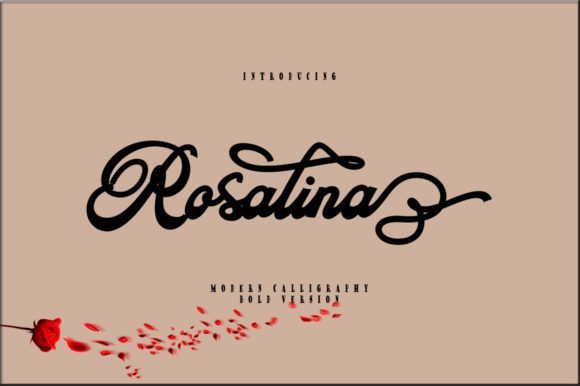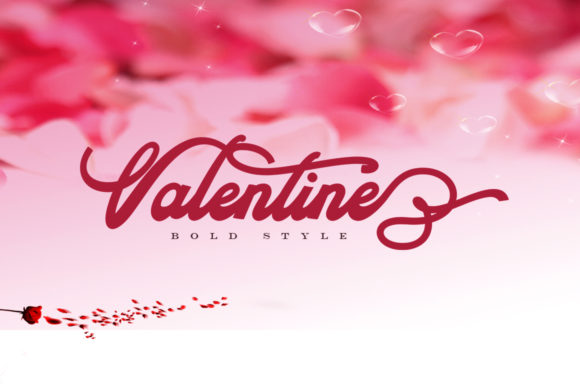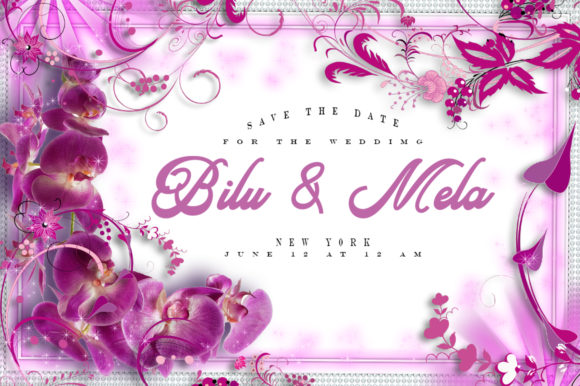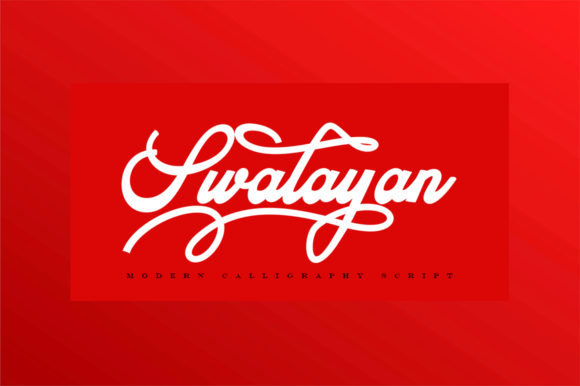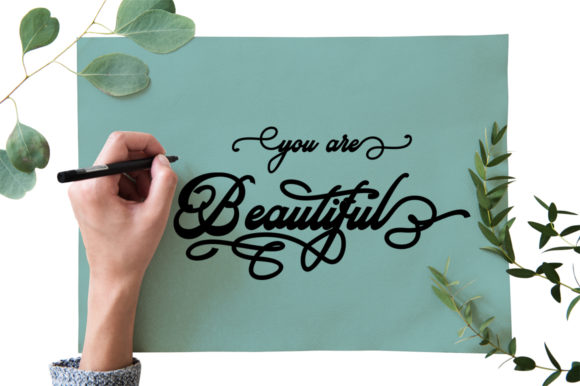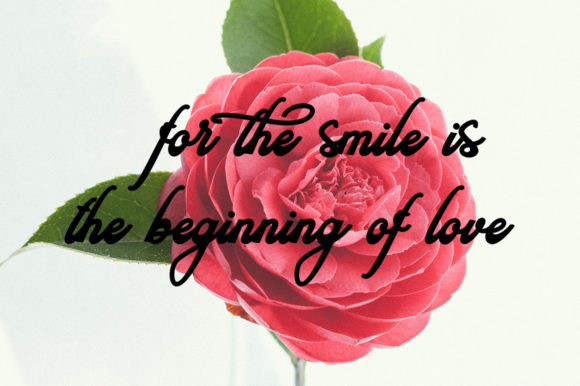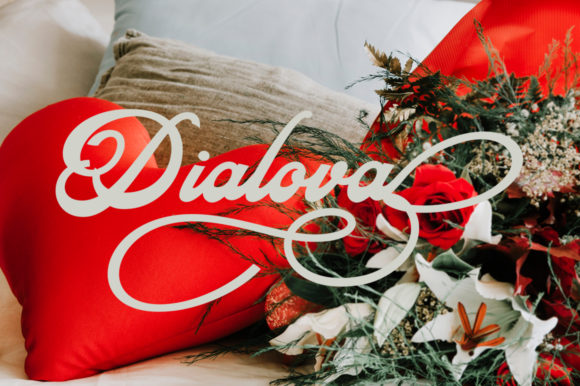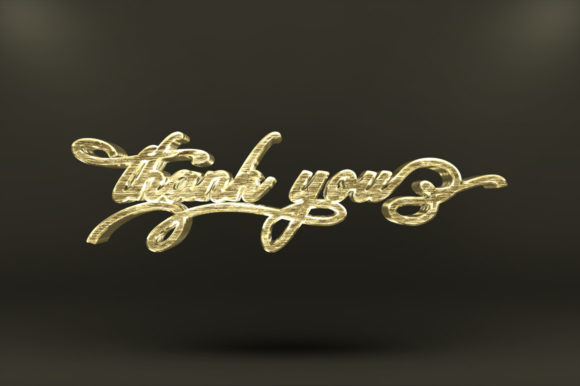
Rosalina Font
About Rosalina Font
Rosalina is an equally romantic and elegant handwritten font with a stunning feel. Use it to add a delicate twist to any design project.